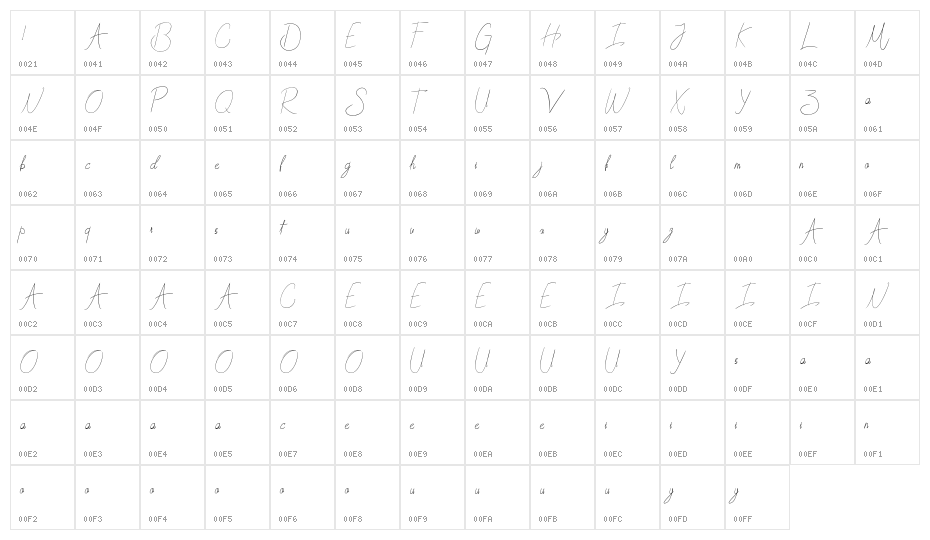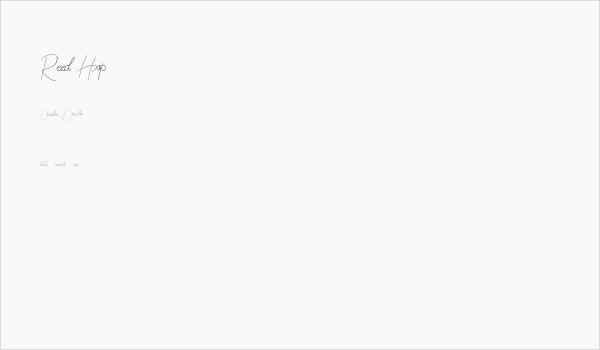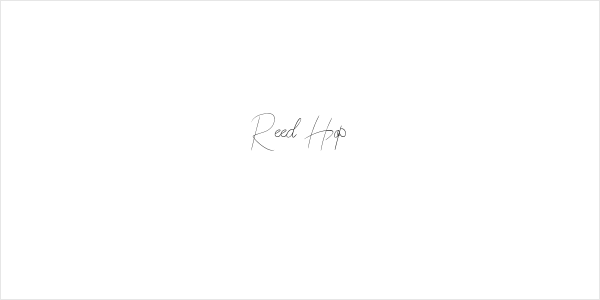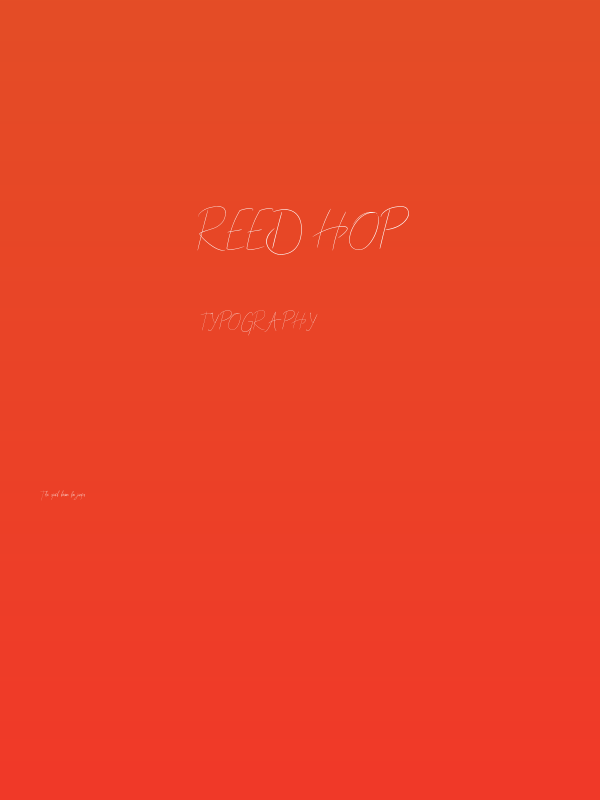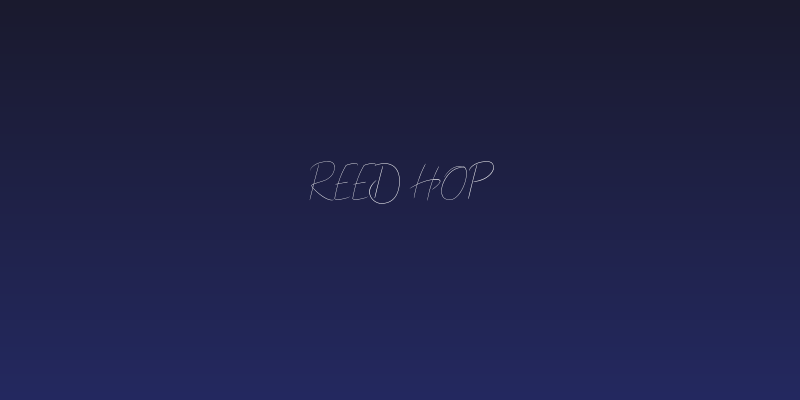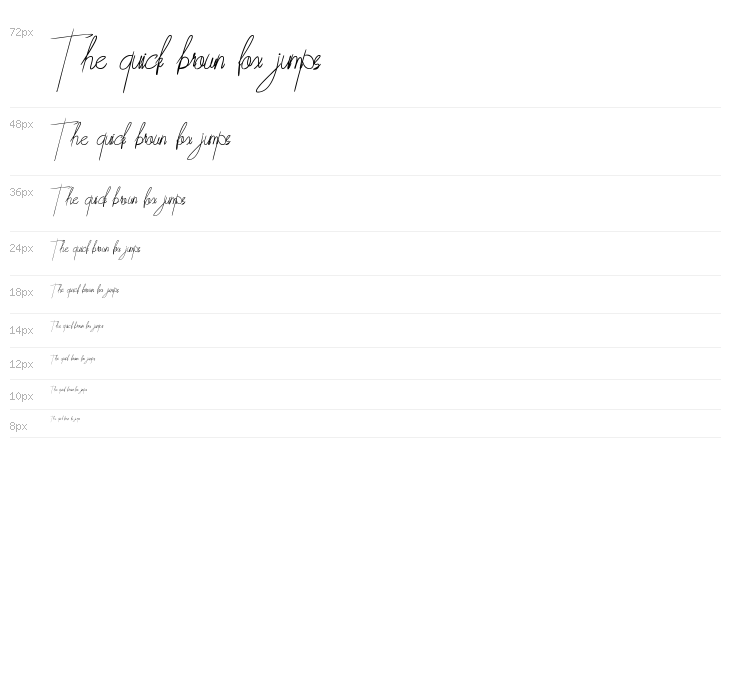
Reed Hop Font
Reed Hop Description
This font features a delicate, handwritten style with an elegant and flowing script. The characters are thin and elongated, giving a sense of grace and sophistication. The uppercase letters are slightly more structured, while the lowercase letters exhibit a more fluid and cursive appearance. The overall look is airy and light, with a whimsical touch that adds personality to any text. The font maintains a consistent stroke width, contributing to its refined and polished aesthetic. It is ideal for projects that require a personal and artistic touch.
Overall StyleElegant, Whimsical
Use CaseLogos, Invitations, Artistic Text
Proposed ProjectsIdeal for wedding invitations, personal branding, greeting cards, and artistic projects.